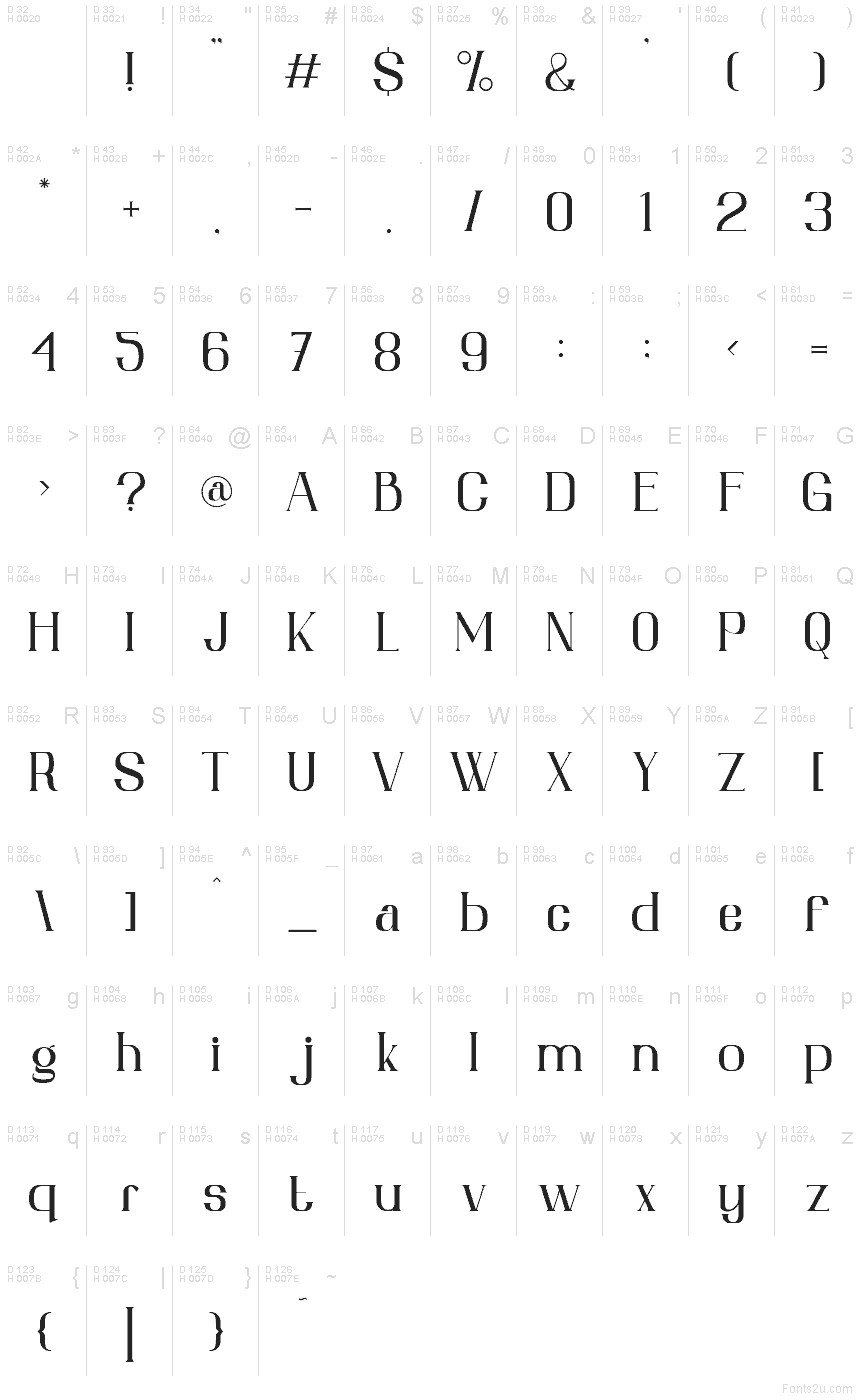
Chester Chesire Serif
Chester Chesire Serif font by PutraCetol Studio is a free vintage serif typeface. It wears a sly, storybook grin—tall, narrow forms with long, tapering serifs and inky thicks that snap into hairline thins. The rhythm feels upright and theatrical, like a hand-painted poster pulled from an old marquee, with crisp edges that keep the quirks sharp rather than fussy. Pair it with a clean grotesk sans and let this serif take the headline.
Using Chester Chesire Serif, headlines lock up with real presence for boutique logos, book covers, beverage labels, theater posters, album art, and upscale menus. The tight vertical drive helps titles stack neatly, while the dramatic strokes add a touch of drama without getting gaudy. This free font shines when you give it room—set it large, add a hint of letterspacing, and let the curves do the talking.